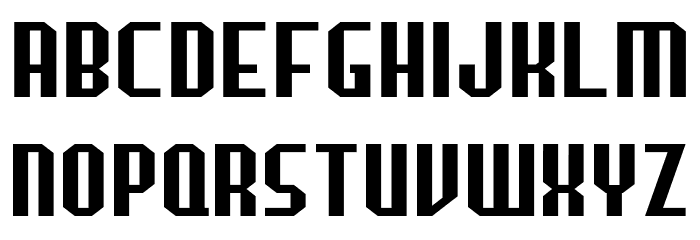
Bondoyudo Sans Font
This font features a bold, geometric design with sharp, angular lines and a modern aesthetic. The uppercase letters are uniform in height, creating a cohesive and structured appearance. The characters are slightly condensed, giving them a compact look while maintaining readability. The numbers follow the same geometric style, ensuring consistency across all characters. The overall design is clean and minimalistic, making it suitable for a variety of applications where a contemporary and bold statement is desired.
A bold, geometric font with sharp, angular lines and a modern aesthetic.
- Font: Bondoyudo Sans
- Proposed Projects: Ideal for branding, headlines, posters, and digital media where a strong, modern presence is needed.